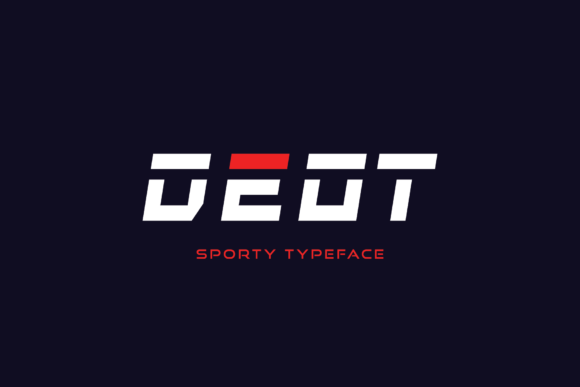
Introducing Deot Font: The Ultimate Sporty Bold Font for Your Projects
In the world of typography, fonts play a crucial role in conveying messages, expressing emotions, and creating visual identities. When it comes to making a bold statement, Deot Font is an excellent choice. Deot is a sporty bold font that features strong blocky glyphs, making it perfect for projects that require a futuristic and edgy look. In this article, we’ll explore the features, benefits, and uses of Deot Font, and why it’s an ideal choice for your design projects.
What is Deot Font?
Deot Font is a modern, bold, and sporty font designed to make a statement. Its strong blocky glyphs give it a unique and futuristic look, making it suitable for a wide range of projects, from logo designs to social media posts, banners, posters, headers, and more. The font’s bold and edgy design ensures that your message stands out, grabbing the attention of your audience.
Key Features of Deot Font
- Strong Blocky Glyphs: Deot Font features strong, blocky glyphs that give it a bold and sporty look.
- Futuristic Design: The font’s futuristic design makes it perfect for projects that require a modern and edgy look.
- Bold and Attention-Grabbing: Deot Font is designed to make a statement, grabbing the attention of your audience.
- Versatile: The font is suitable for a wide range of projects, from logo designs to social media posts, banners, posters, headers, and more.
Benefits of Using Deot Font
Using Deot Font in your projects offers several benefits, including:
- Instant Recognition: The font’s bold and attention-grabbing design ensures that your message stands out, making it instantly recognizable.
- Professional Look: Deot Font gives your projects a professional look, making it perfect for businesses, organizations, and individuals looking to create a strong visual identity.
- Easy to Read: Despite its bold design, Deot Font is easy to read, making it suitable for body text and headlines.
- Customizable: The font is highly customizable, allowing you to adjust its size, color, and style to fit your project’s needs.
Use Cases for Deot Font
Deot Font is a versatile font that can be used in a wide range of projects, including:
- Logo Designs: The font’s bold and attention-grabbing design makes it perfect for logo designs that require a strong visual identity.
- Social Media Posts: Deot Font is suitable for social media posts, including Facebook, Twitter, Instagram, and more.
- Banners and Posters: The font’s bold design makes it perfect for banners and posters that require a strong visual impact.
- Headers and Titles: Deot Font is suitable for headers and titles that require a bold and attention-grabbing design.
Tips and Tricks for Using Deot Font
Here are some tips and tricks for using Deot Font:
- Use it Sparingly: Use Deot Font sparingly to avoid overwhelming your audience.
- Pair it with Other Fonts: Pair Deot Font with other fonts to create a unique and visually appealing design.
- Experiment with Colors: Experiment with different colors to find the perfect combination for your project.
- Pay Attention to Legibility: Pay attention to legibility, ensuring that your text is easy to read.
| Font Name | Deot Font |
| Author | ebaddesigns |
In conclusion, Deot Font is a sporty bold font that features strong blocky glyphs, making it perfect for projects that require a futuristic and edgy look. Its bold and attention-grabbing design ensures that your message stands out, making it instantly recognizable. With its versatility, ease of use, and customizable design, Deot Font is an excellent choice for designers, businesses, and individuals looking to create a strong visual identity.
- What is Deot Font?: Deot Font is a sporty bold font featuring strong blocky glyphs.
- What is Deot Font used for?: Deot Font is suitable for a wide range of projects, including logo designs, social media posts, banners, posters, headers, and more.